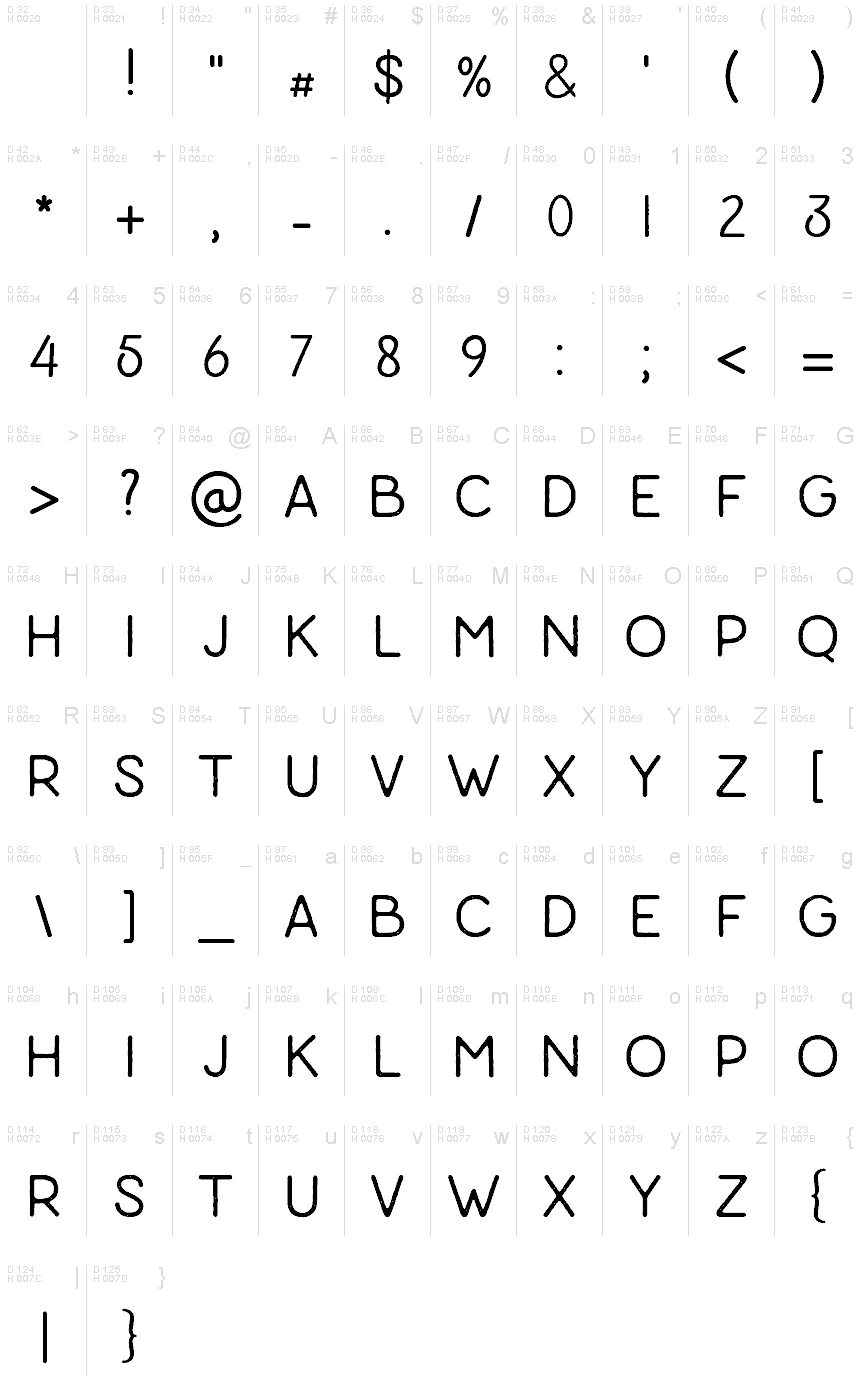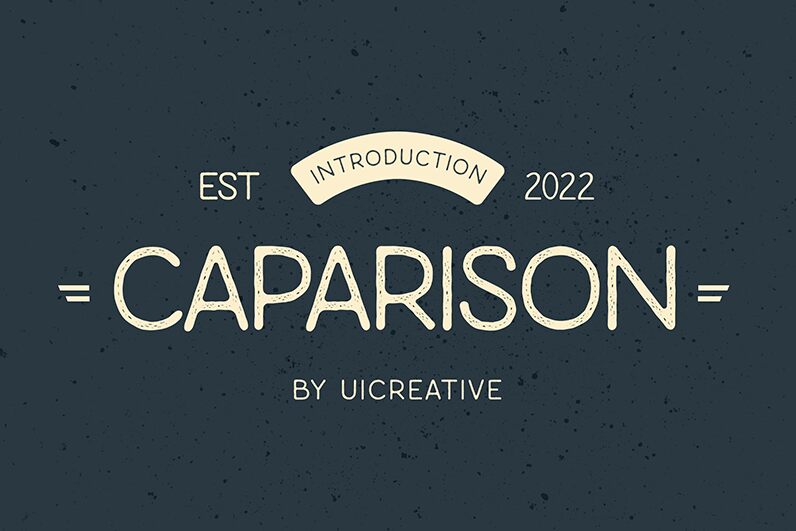
Caparison Regular
The best typefaces, unlike people, are open to second chances. And this free display font created by UI Creative is one of them. Inspired by the vintage style typefaces used in old magazines, Caparison carries a relaxed, casual feel to your designs with its textured characters and simple style. It is perfect for headlines, quotes, logotypes, and more, making it suitable for a wide range of projects.